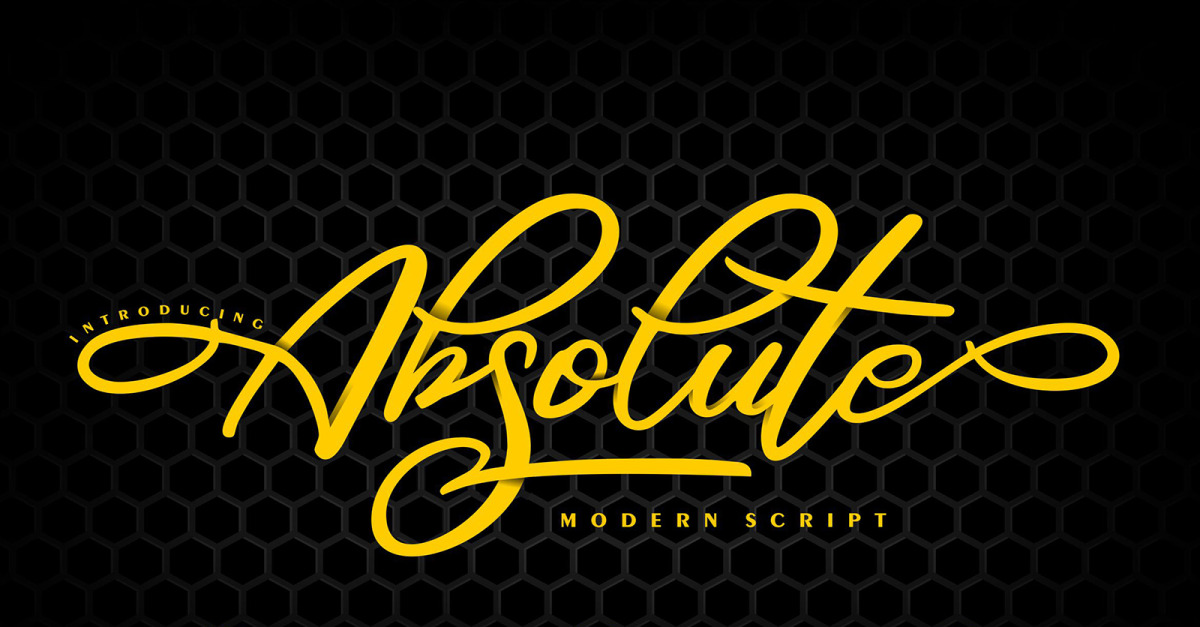
Absolute | Modern Cursive Font
**Absolute | Modern Script** with a calligraphy style, So beautiful on invitation like greeting cards, branding materials, business cards, quotes, posters, and more!